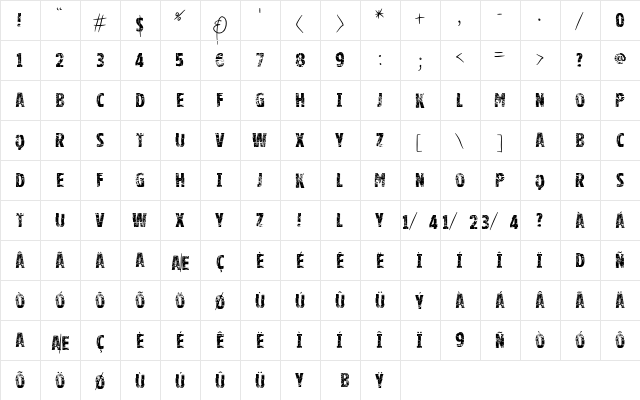
Vtks good luck for you Regular
| Foundry | douglas vitkauskas |
| Designer | douglas vitkauskas |
Design Context for Vtks good luck for you Typeface
Vtks good luck for you is a composed and adaptable typeface that performs quietly and consistently across a wide range of design contexts.